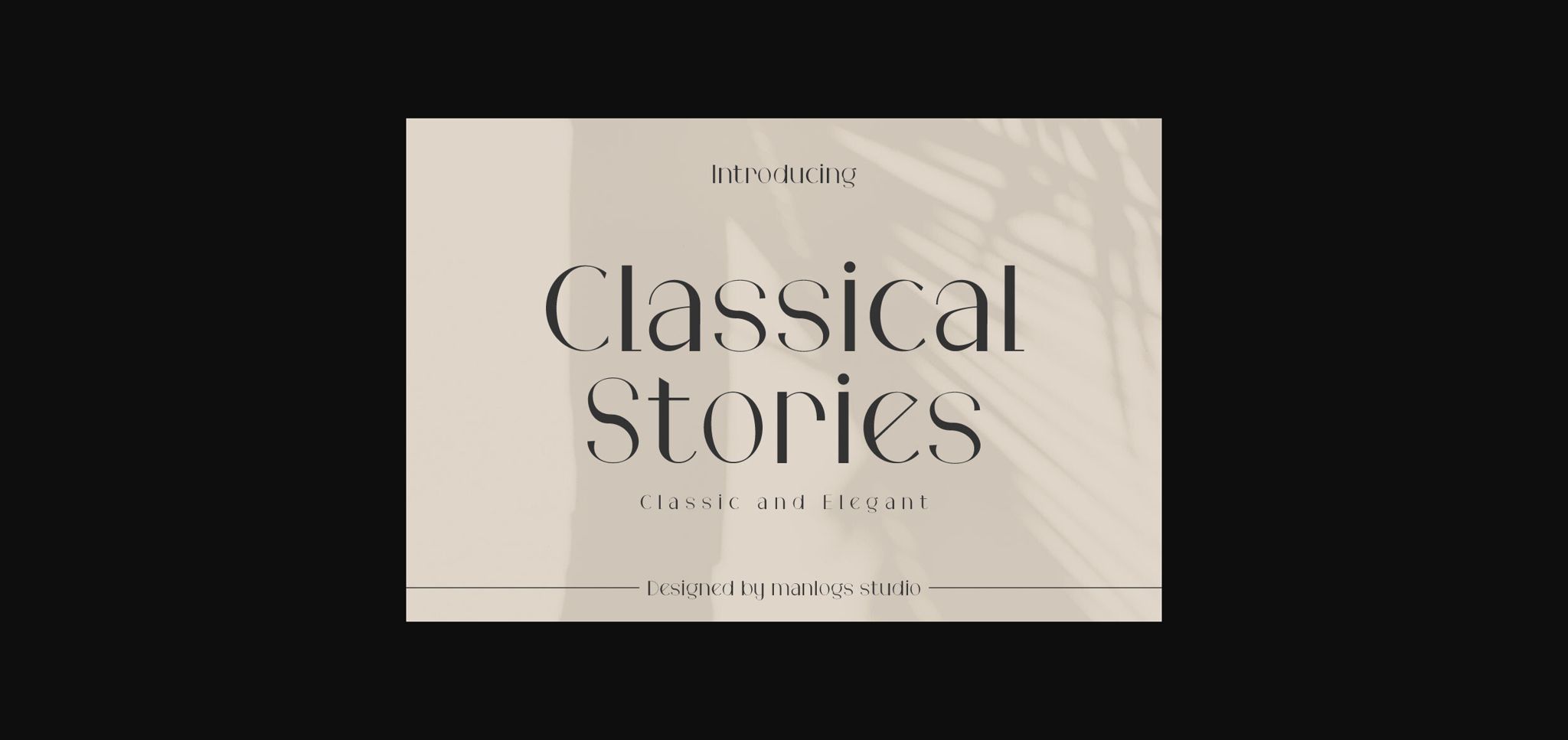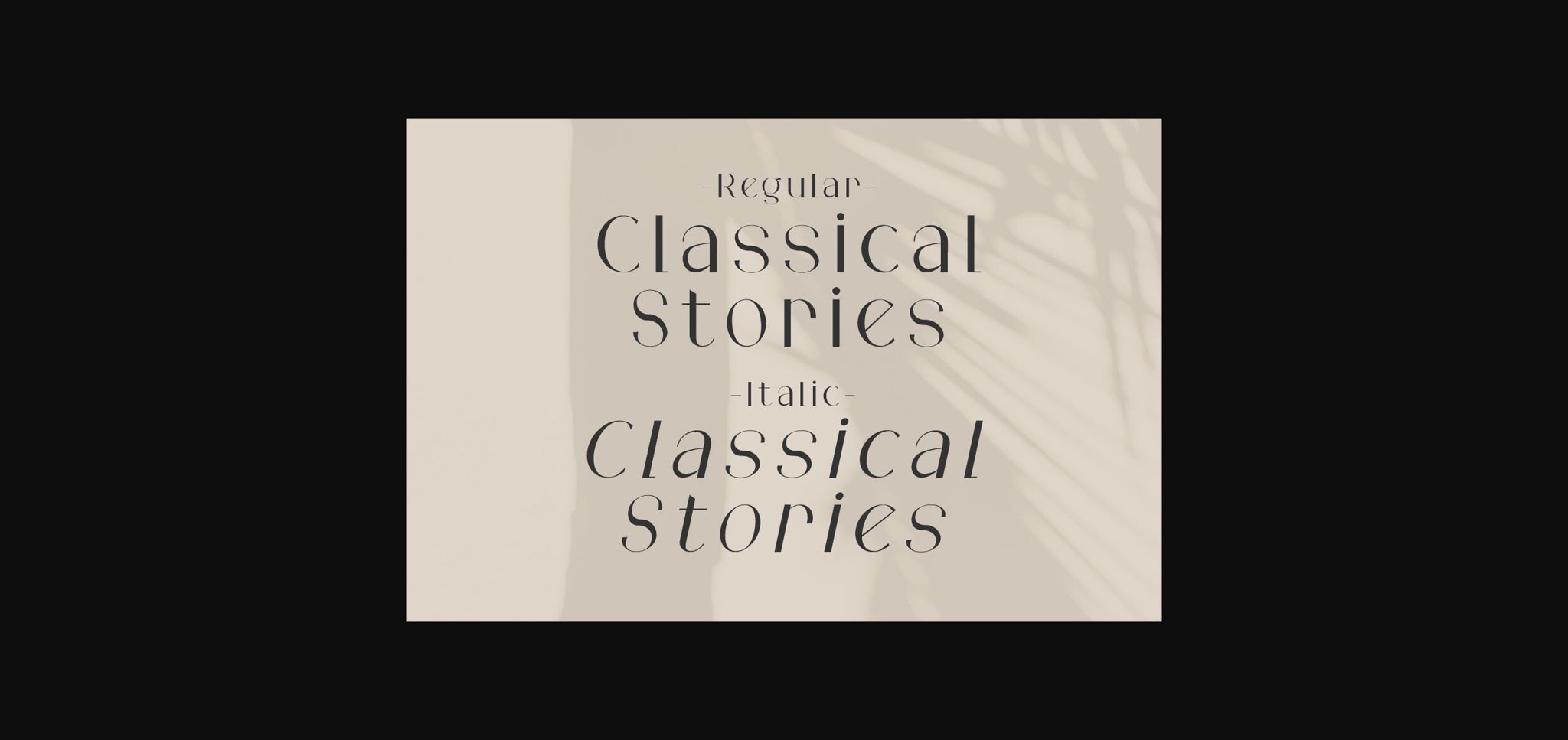
About Classical Stories Font
Classical Stories is a refined sans-serif font that exudes sophistication and elegance. With clean lines and balanced proportions, it offers a timeless appeal suitable for various design projects. Whether used in editorial layouts, branding materials, or signage, this font adds a touch of classical beauty to any composition.